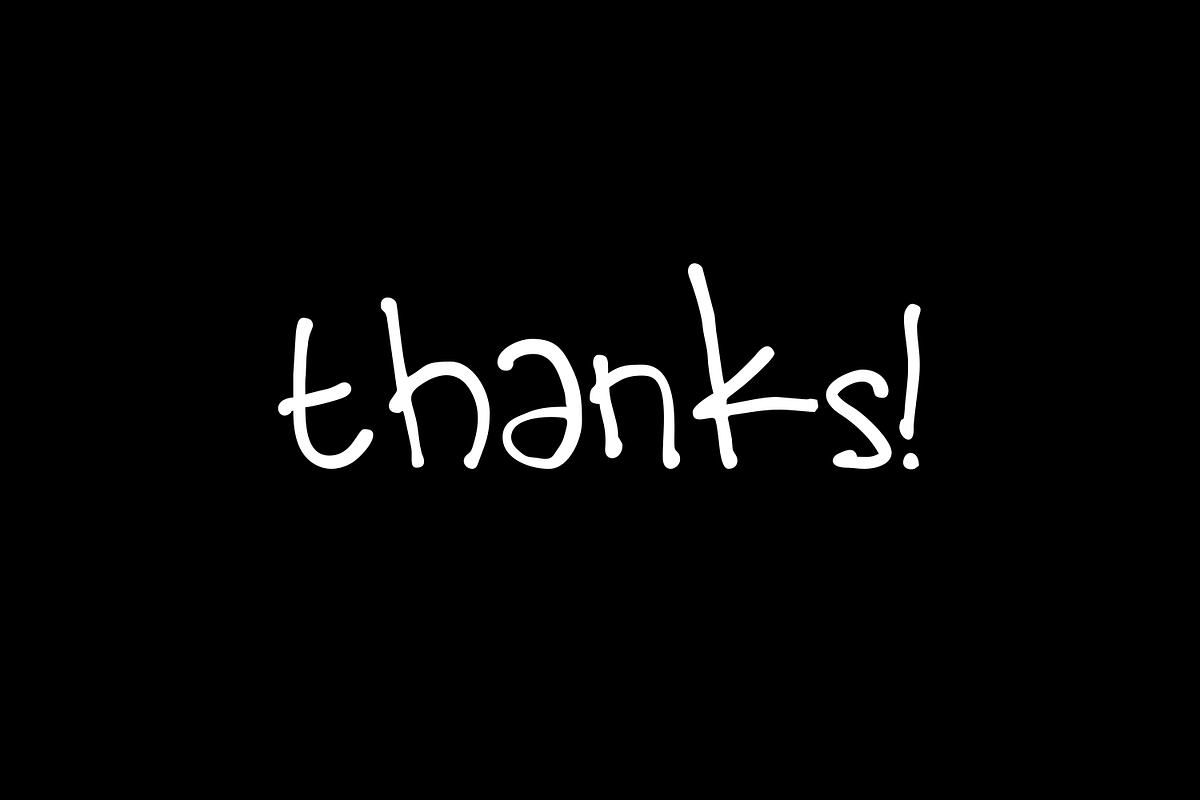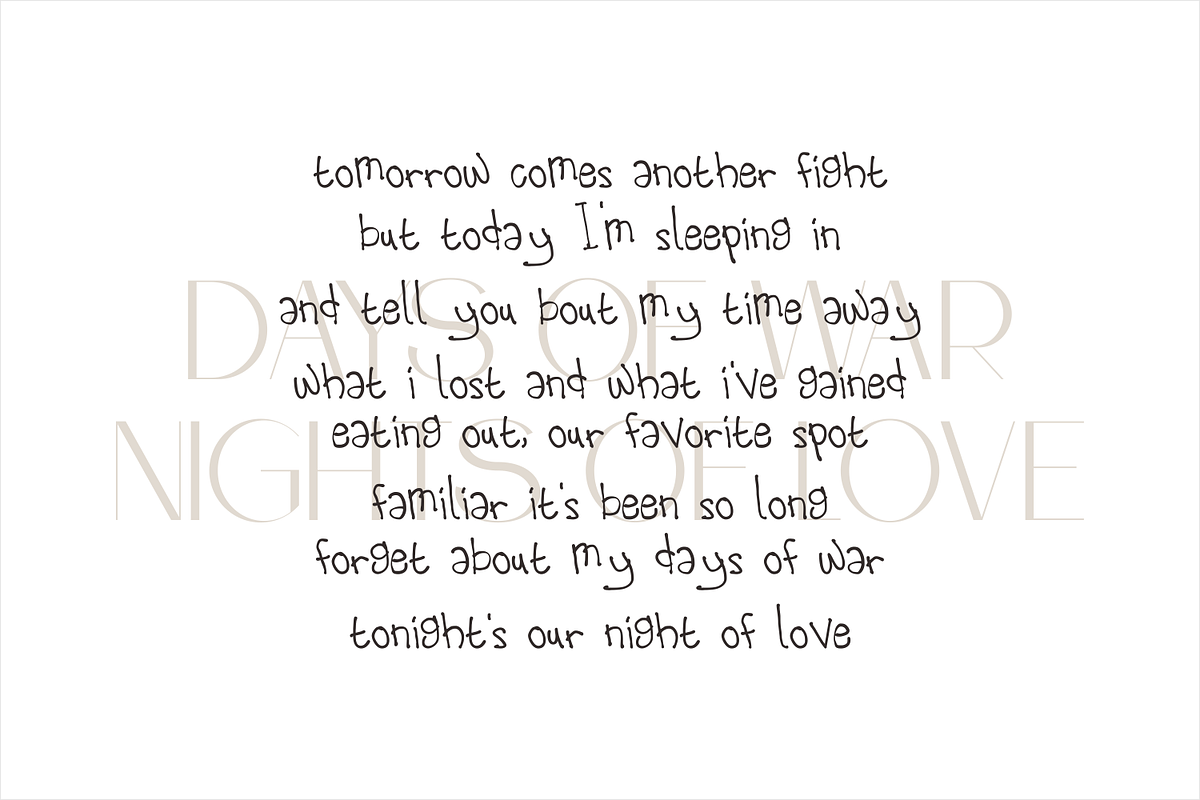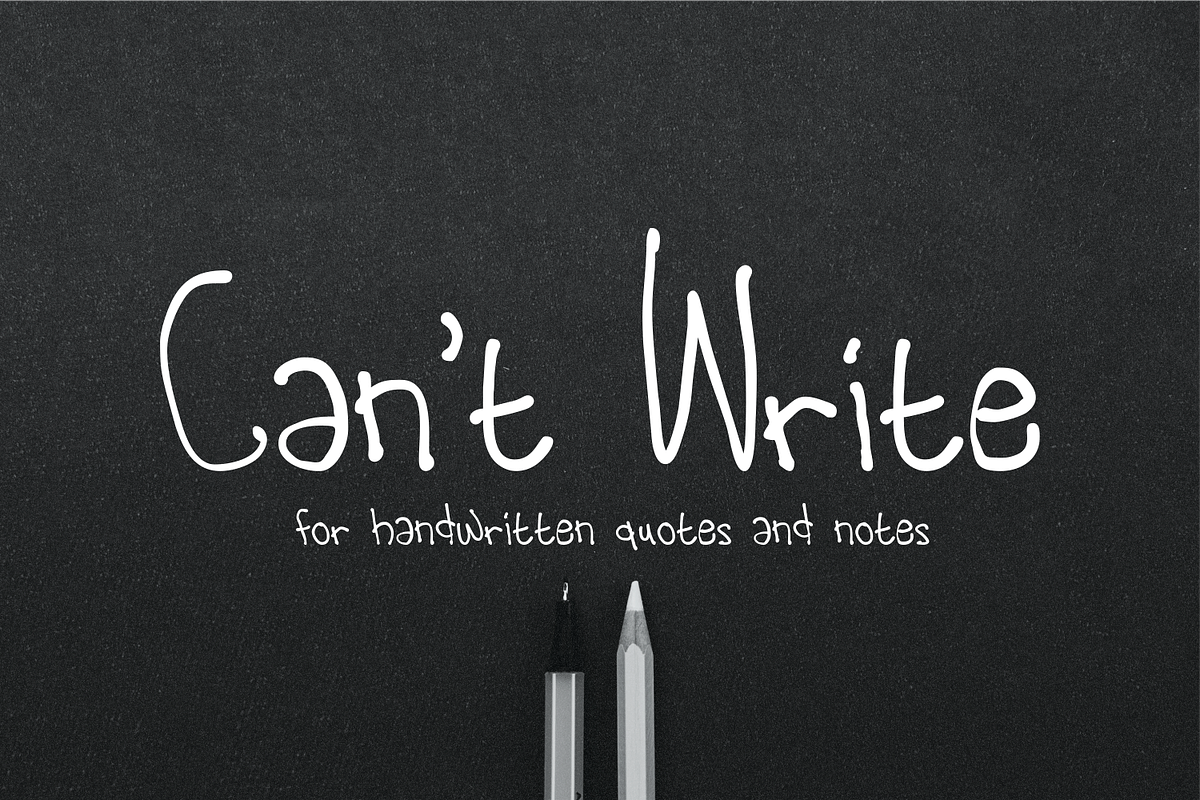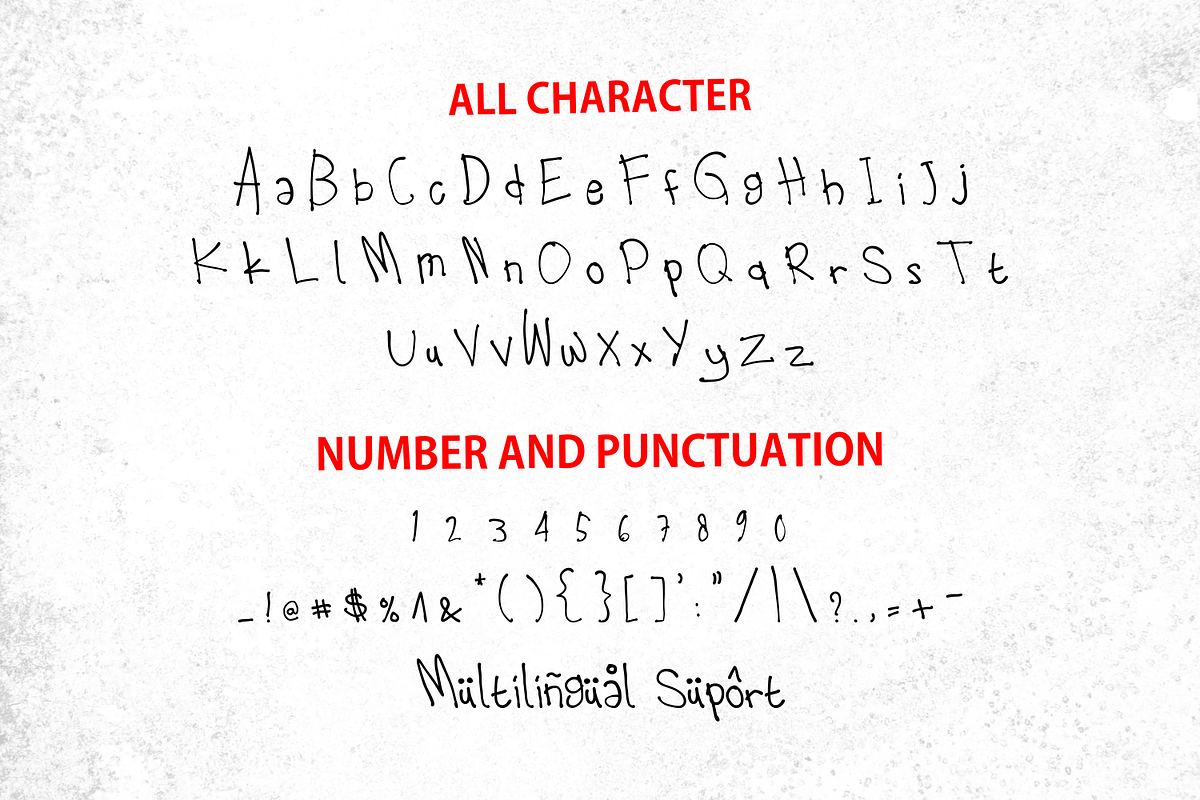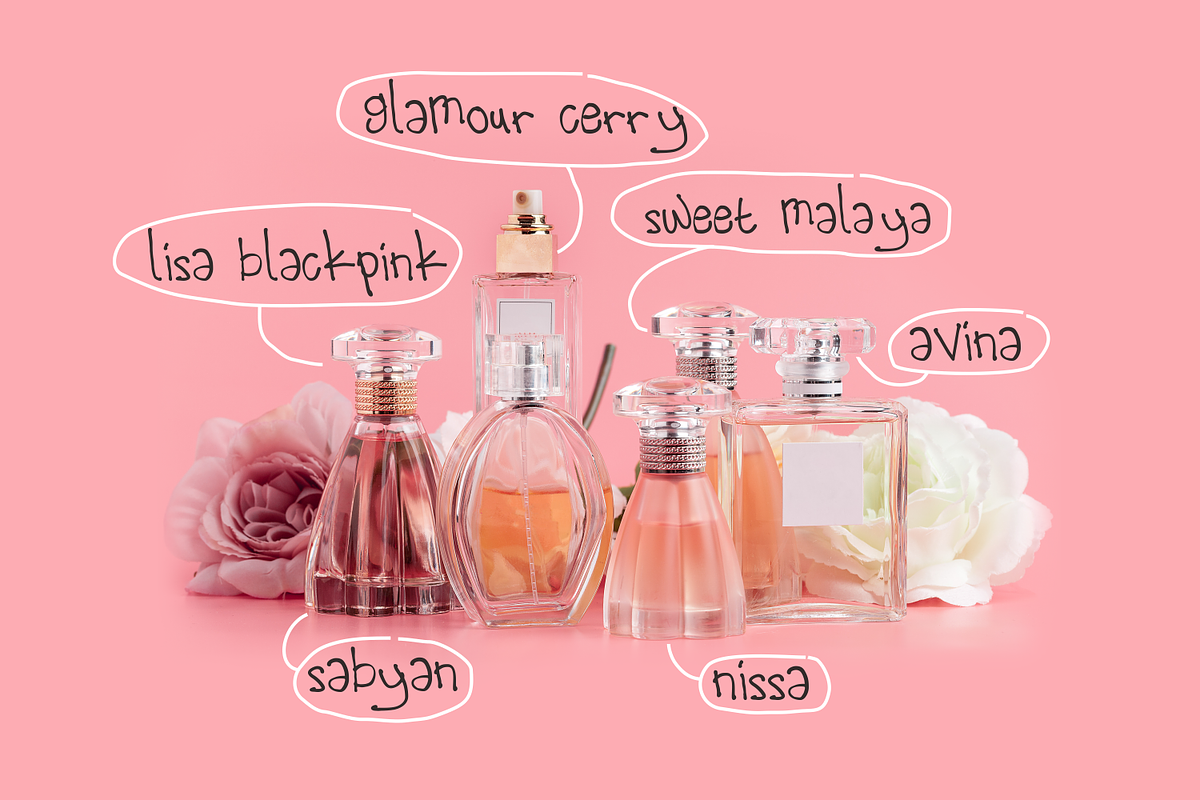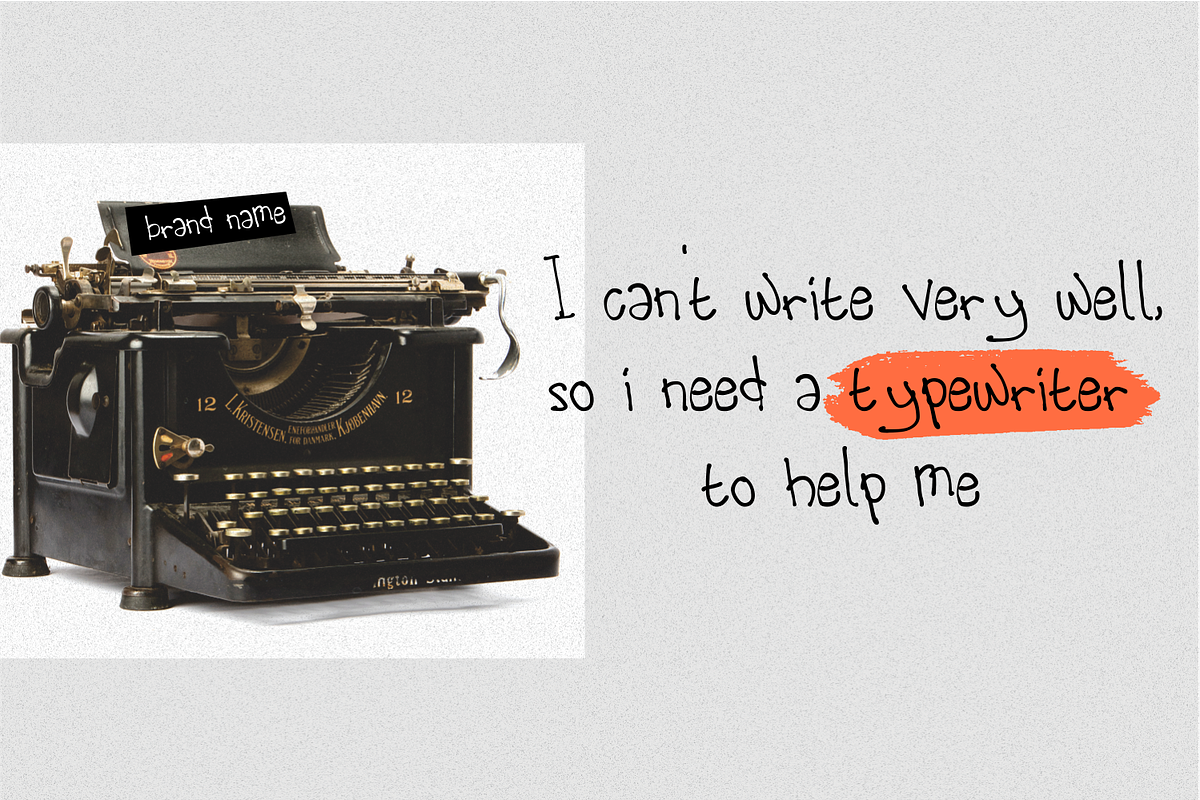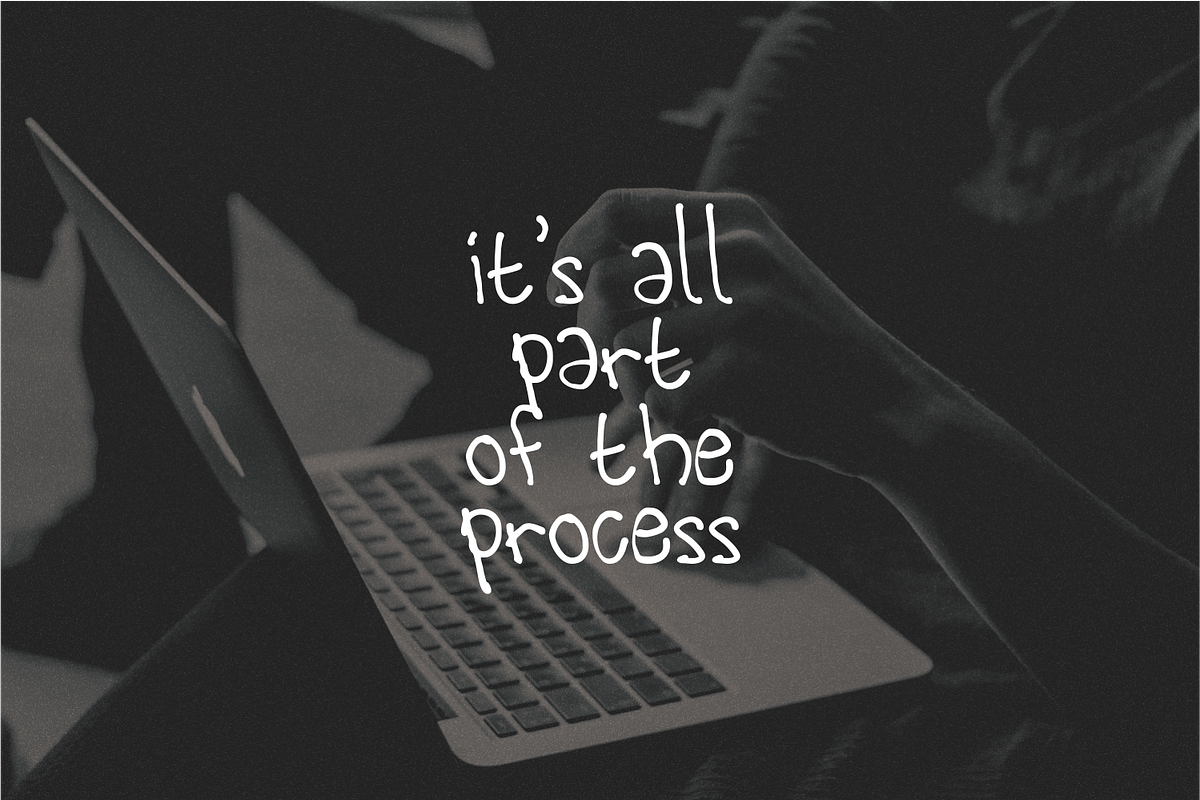
Can't Write
Introducing Can't Write by Forberas
Modern and beautiful handwritten script font! Great for wedding greeting cards, logos, branding materials, Invitation, business cards, quotes, posters, Cricut artwork and more!